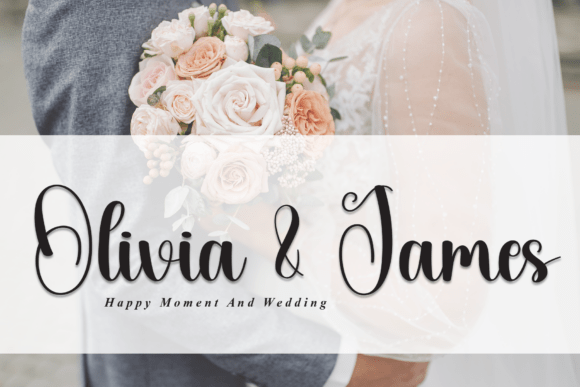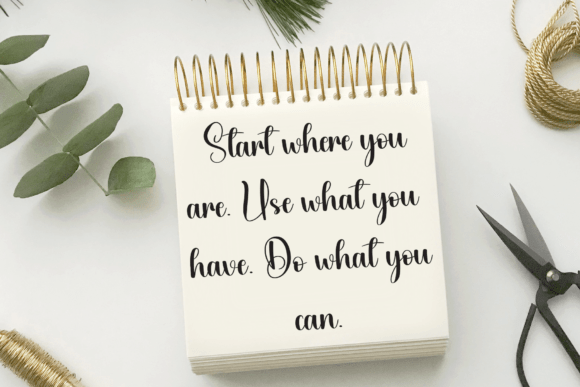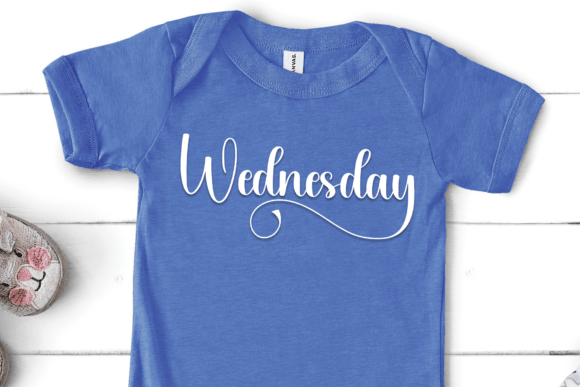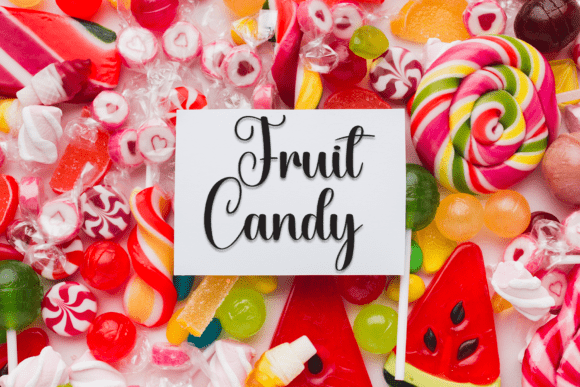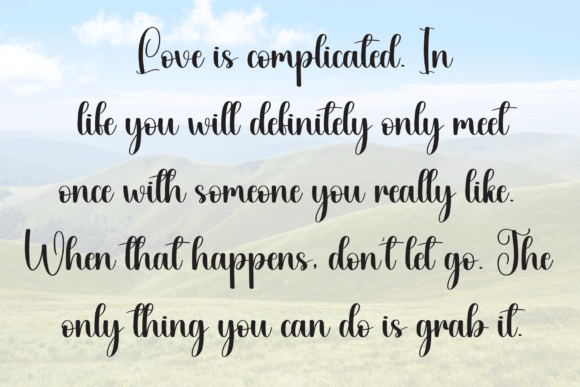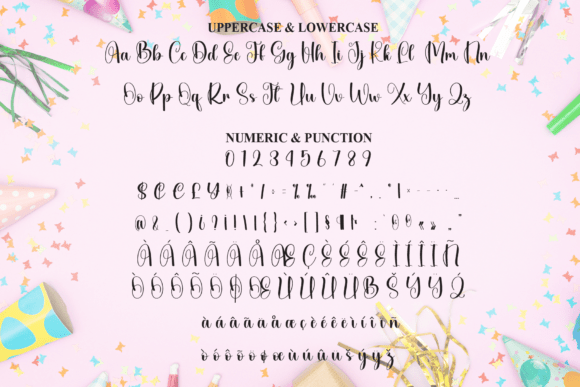
Introducing Birthday Font: The Perfect Script Font for Romantic Projects
Are you looking for a font that exudes warmth, affection, and elegance? Look no further than Birthday Font, a beautiful handwritten script font that is perfect for romantic projects, wedding invitations, branding, and heartfelt messages. With its flowing strokes and elegant curves, Birthday Font is sure to capture the intimate and personal touch you’re looking for.
The Characteristics of Birthday Font
Birthday Font is a graceful handwritten script font that is designed to radiate warmth and affection. Its flowing strokes and elegant curves make it perfect for a variety of projects, from romantic getaways to wedding invitations and more. The font’s versatility is one of its standout features, making it ideal for designers and crafters who want to add a personal touch to their work.
Perfect for Romantic Projects
Whether you’re working on a romantic getaway brochure, a wedding invitation, or a heartfelt message, Birthday Font is the perfect choice. Its elegant and flowing strokes evoke a sense of love and affection, making it perfect for any project that requires a personal touch. The font’s romantic feel is sure to capture the emotions of your audience, making it an excellent choice for designers and crafters who want to create a lasting impression.
Wedding Invitations and Branding
Birthday Font is also an excellent choice for wedding invitations and branding projects. Its elegant and sophisticated feel makes it perfect for formal events, while its playful and romantic touch makes it ideal for more casual gatherings. The font’s versatility is also perfect for branding projects, where you want to create a lasting impression on your customers. Whether you’re creating a logo, business card, or website, Birthday Font is sure to make your brand stand out.
Conveying Emotions with Style and Charm
One of the standout features of Birthday Font is its ability to convey emotions with style and charm. The font’s flowing strokes and elegant curves make it perfect for expressing heartfelt messages, romantic sentiments, and affectionate feelings. Whether you’re creating a Valentine’s Day card, a wedding invitation, or a simple love letter, Birthday Font is sure to capture the emotions of your audience.
Design and Crafting Applications
Birthday Font is perfect for a variety of design and crafting applications, including:
- Romantic getaway brochures and travel guides
- Branding and logo design
- Heartfelt messages and love letters
- Unique and elegant design
- Flowing strokes and elegant curves
- Perfect for romantic projects and wedding invitations
- Conveys emotions with style and charm
In conclusion, Birthday Font is a beautiful handwritten script font that is perfect for romantic projects, wedding invitations, branding, and heartfelt messages. Its flowing strokes and elegant curves make it perfect for conveying emotions with style and charm. Whether you’re a designer or crafter, Birthday Font is sure to become a favorite in your collection. So why wait? Download Birthday Font today and start creating beautiful, romantic projects that capture the heart.
| Font Style | Handwritten Script Font |
| Font Characteristics | Flowing strokes, elegant curves |
| Use Cases | Romantic projects, wedding invitations, branding, heartfelt messages |
| Emotional Conveyance | Conveys emotions with style and charm |